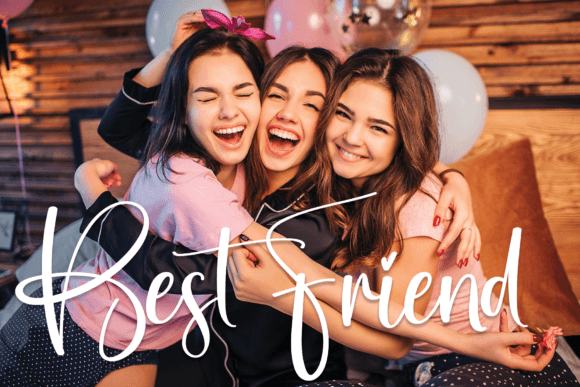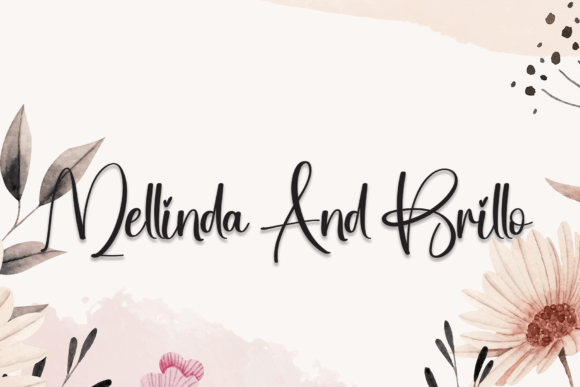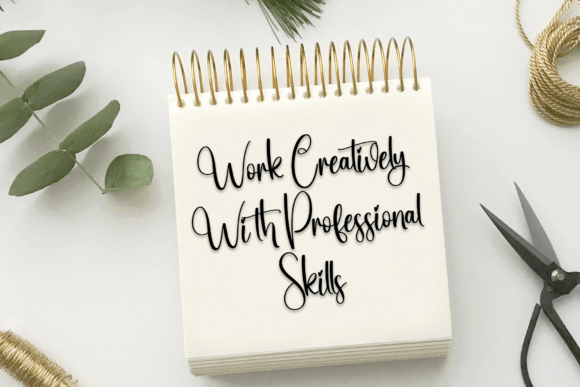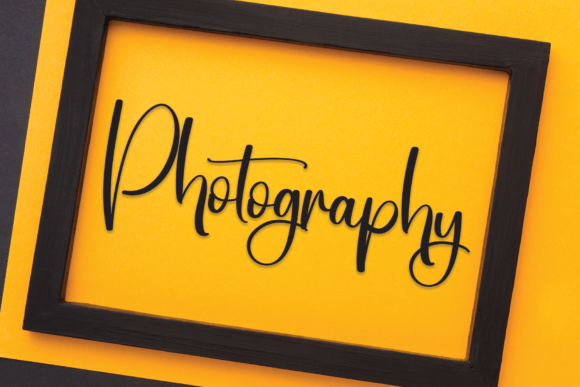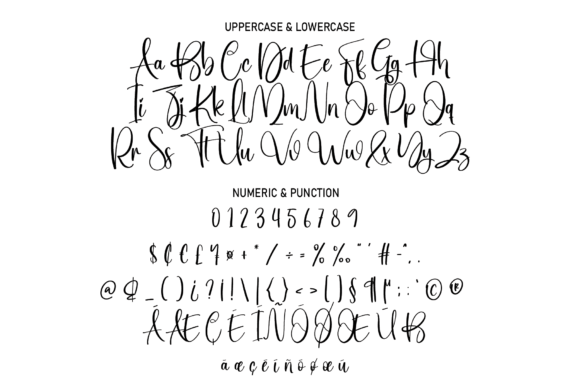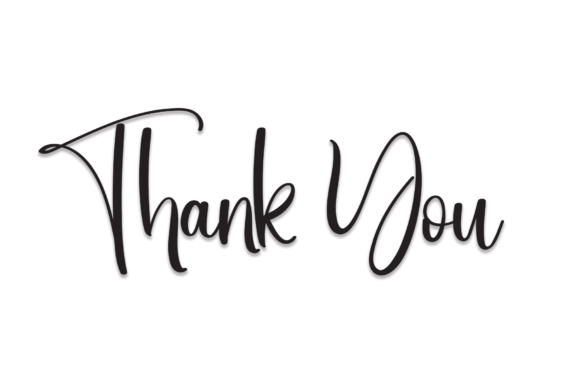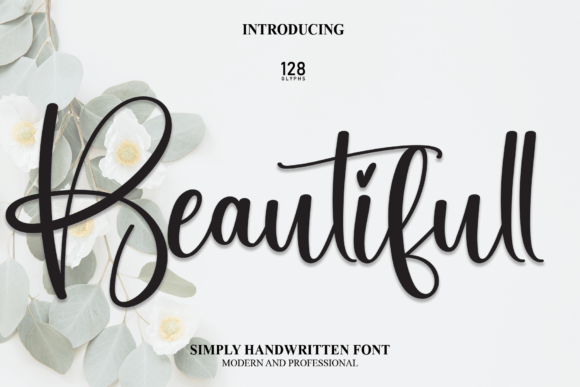
Discover the Charm of Beautiful Font: A Sweet and Romantic Handwritten Script Font
Are you looking for a font that exudes love, elegance, and sophistication? Look no further than Beautiful Font, a sweet and romantic handwritten script font that will capture your heart. With its incredibly versatile style, Beautiful Font is perfect for creating stunning wedding invitations, gorgeous stationery art, eye-catching social media posts, and much more.
The Beauty of Handwritten Script Fonts
Handwritten script fonts have always been a popular choice for designers and crafters who want to add a personal touch to their projects. They evoke a sense of warmth, intimacy, and elegance, making them perfect for a wide range of applications, from wedding invitations to social media graphics. Beautiful Font is no exception, with its flowing curves, delicate lines, and charming personality.
What Makes Beautiful Font So Special?
Beautiful Font is more than just a pretty font – it’s a versatile tool that can be used in a variety of creative projects. Here are just a few reasons why Beautiful Font stands out:
- Sweet and Romantic: Beautiful Font is designed to be sweet and romantic, making it perfect for wedding invitations, anniversary cards, and other special occasions.
- Incredibly Versatile: Whether you’re creating digital graphics or printing on paper, Beautiful Font looks stunning in any context.
- Easy to Read: Despite its elegant and cursive style, Beautiful Font is easy to read, even in small sizes.
- Highly Customizable: With Beautiful Font, you can create unique and personalized designs by adjusting the font size, color, and style to suit your needs.
Creative Ways to Use Beautiful Font
Beautiful Font is a versatile font that can be used in a wide range of creative projects. Here are some ideas to get you started:
- Wedding Invitations: Create stunning wedding invitations, save-the-date cards, and thank-you notes with Beautiful Font.
- Stationery Art: Design gorgeous stationery art, including letterheads, journals, and planners.
- Social Media Graphics: Use Beautiful Font to create eye-catching social media graphics, including Facebook posts, Instagram stories, and Pinterest pins.
- Digital Art: Create beautiful digital art, including illustrations, paintings, and mixed media designs.
- Crafting Projects: Use Beautiful Font to add a personal touch to your crafting projects, including scrapbooking, card making, and DIY home decor.
Tips for Working with Beautiful Font
Here are some tips for getting the most out of Beautiful Font:
- Experiment with Font Sizes: Beautiful Font looks great in a range of font sizes, from small and delicate to large and bold.
- Play with Color: Try pairing Beautiful Font with different colors and textures to create unique and eye-catching designs.
- Mix and Match: Combine Beautiful Font with other fonts and graphics to create interesting and dynamic designs.
- Pay Attention to Kerning: Make sure to adjust the kerning and spacing to ensure that your text looks elegant and refined.
Beautiful Font is a sweet and romantic handwritten script font that is sure to capture your heart. With its incredibly versatile style, Beautiful Font is perfect for creating stunning wedding invitations, gorgeous stationery art, eye-catching social media posts, and much more. Whether you’re a designer, crafter, or DIY enthusiast, Beautiful Font is a must-have font that will add a touch of elegance and sophistication to your projects.